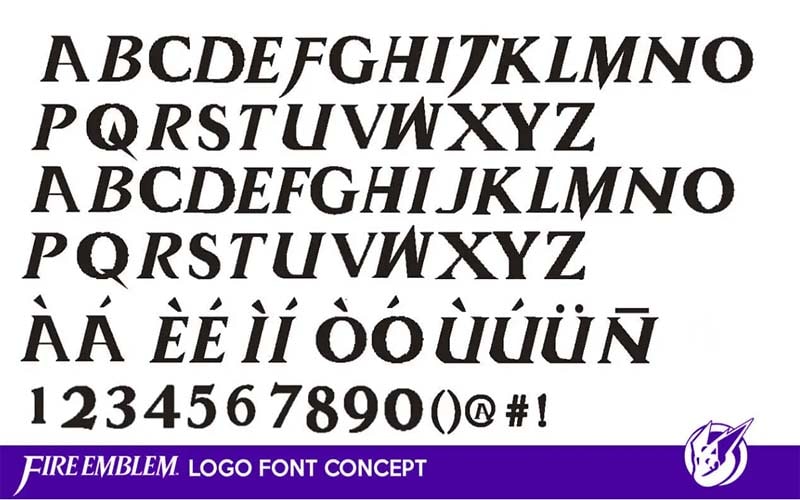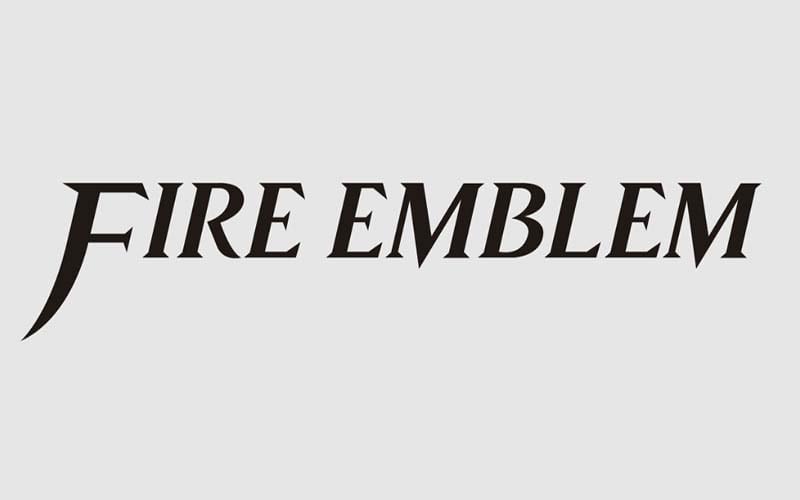
Fire Emblem Font is a logo display and serif typeface. Fire Emblem is a video game published by a very famous game-developing company Nintendo released on 20 April 1990.
The famous font designer Famicom designed this elegant font. He designed this font to create logos for your projects. You can play with this font family in various undertakings.
The Subfamily of this font is regular and has three styles bold italic, regular, and light. The Fire Emblem font family sustains a variety of languages and features keen traits.
Fire Emblem Font
Style:Display, Serif, Logo, Typeface